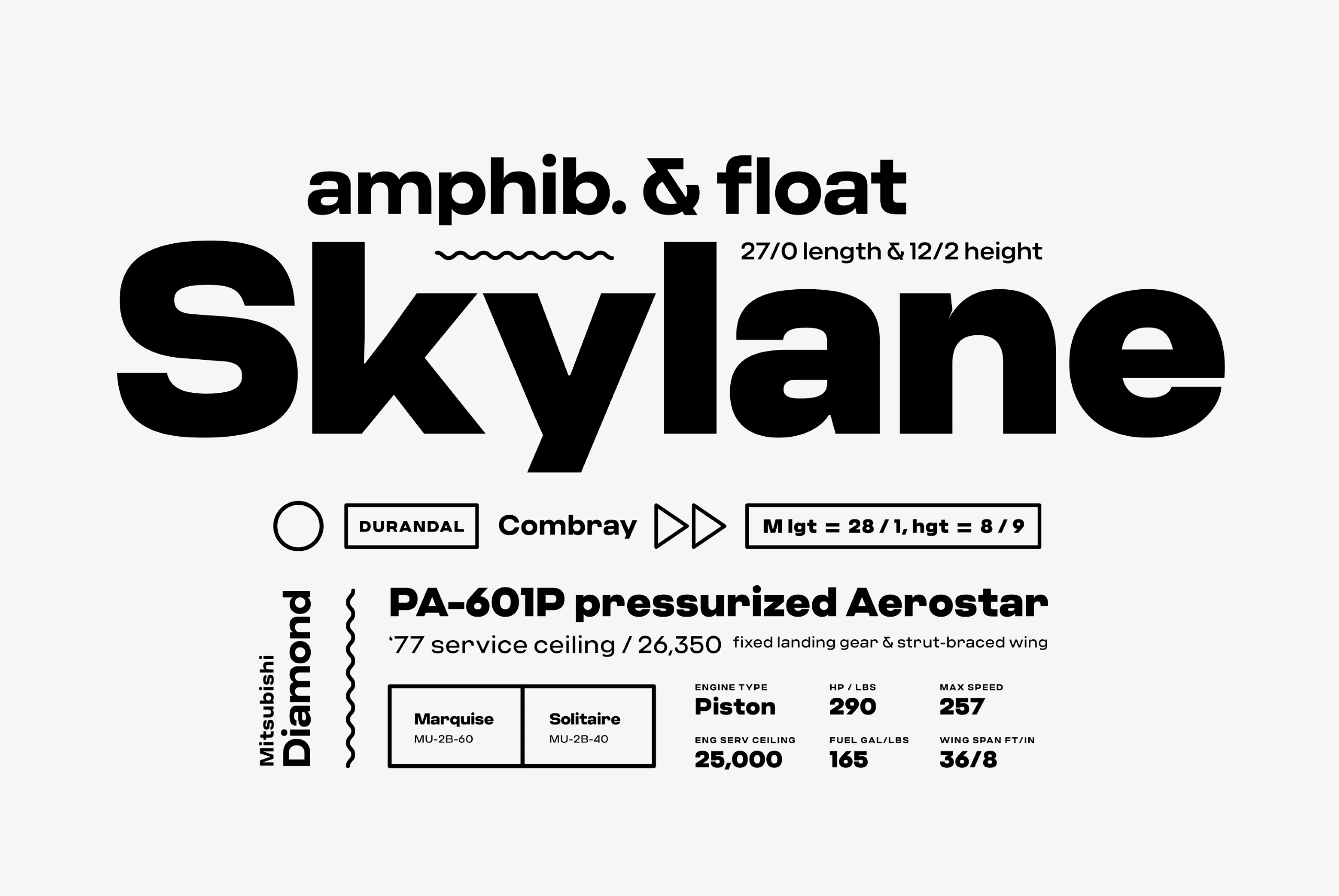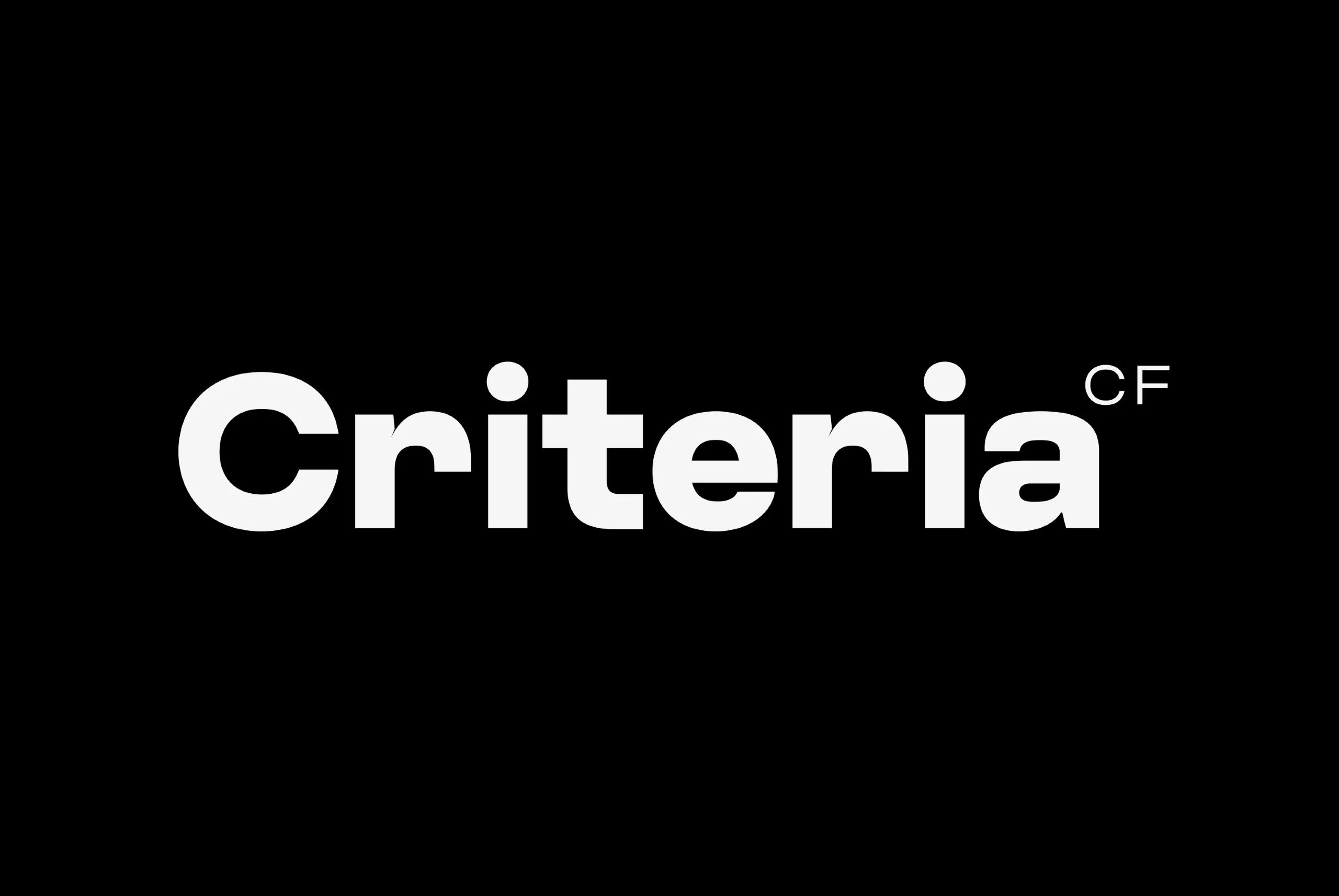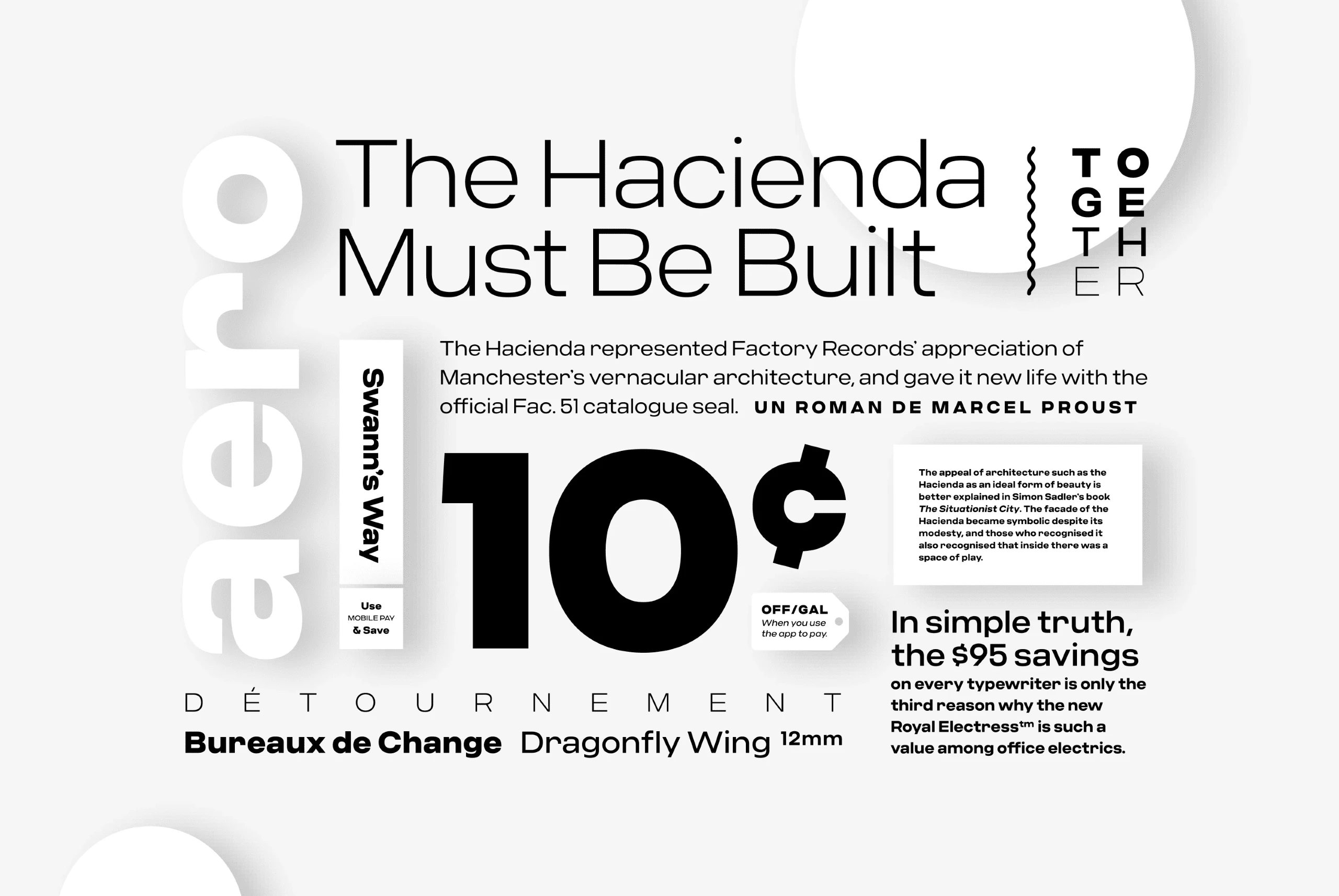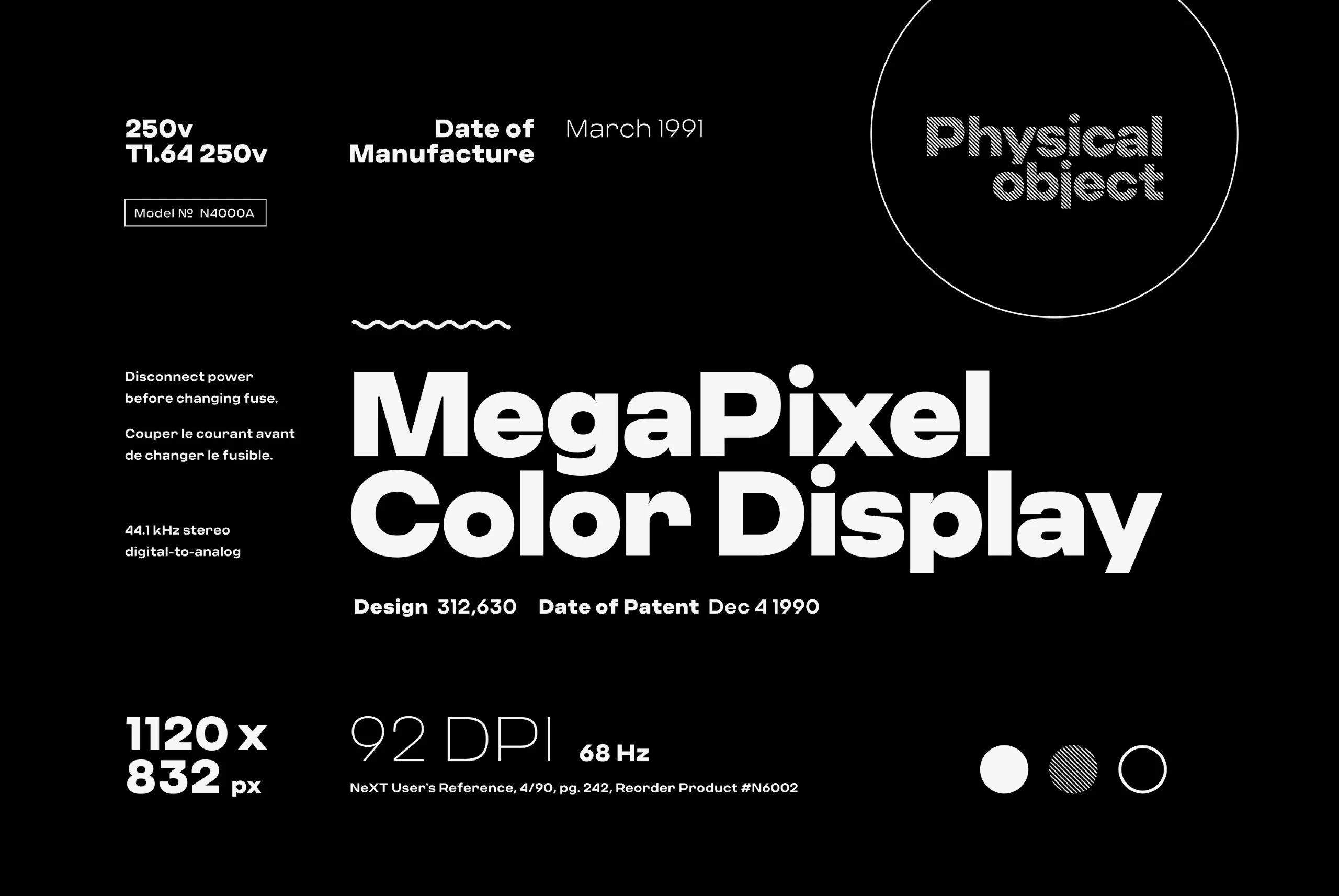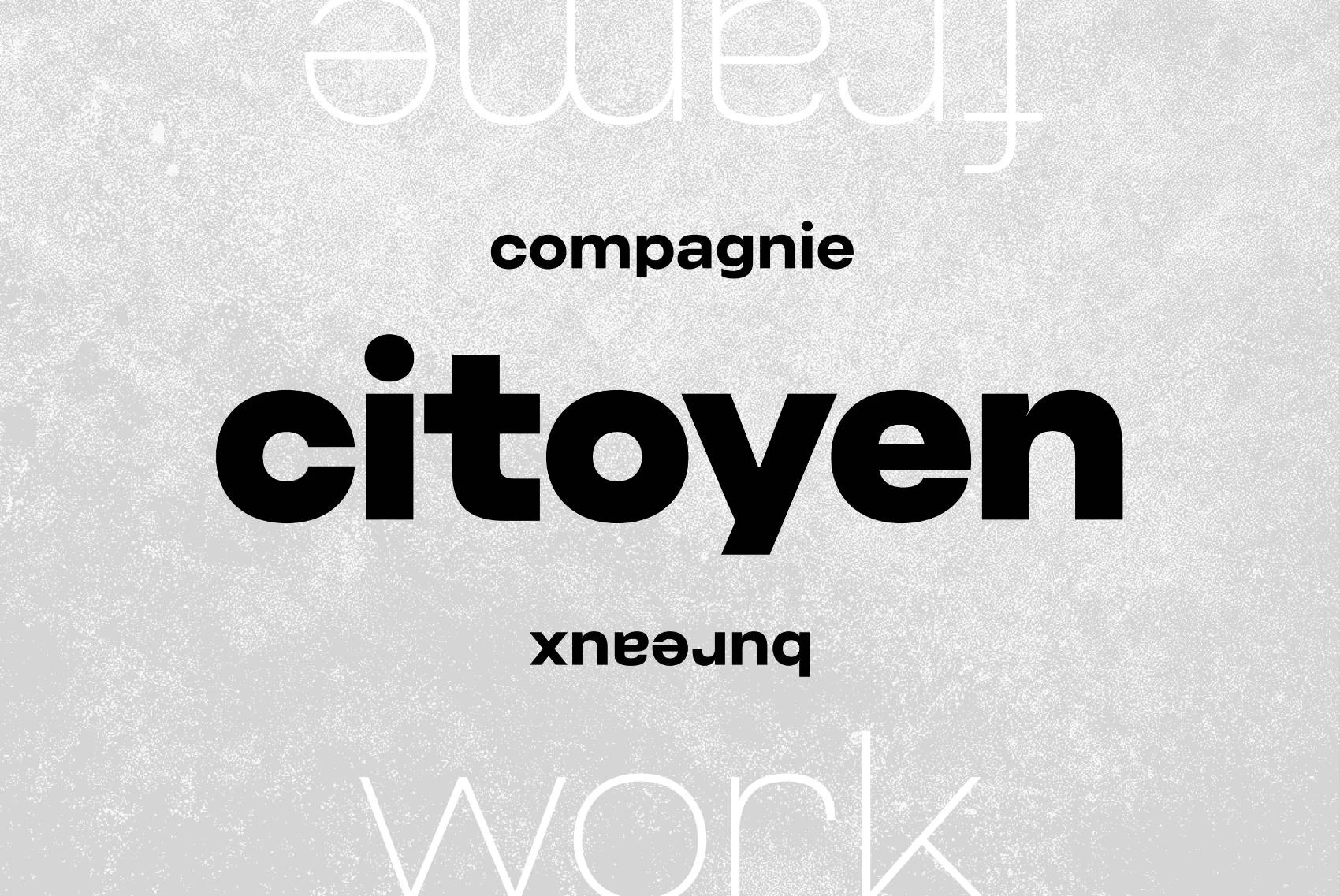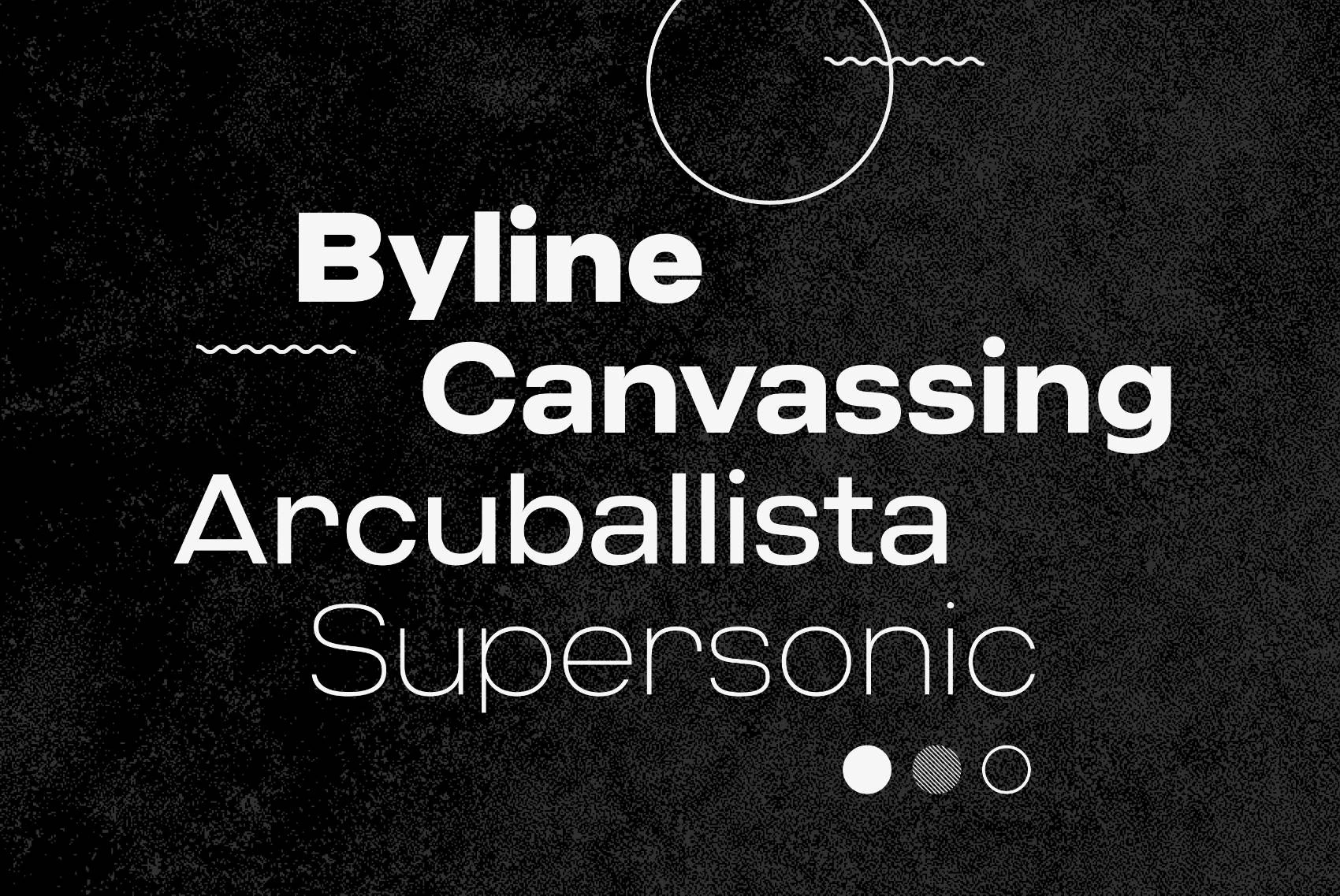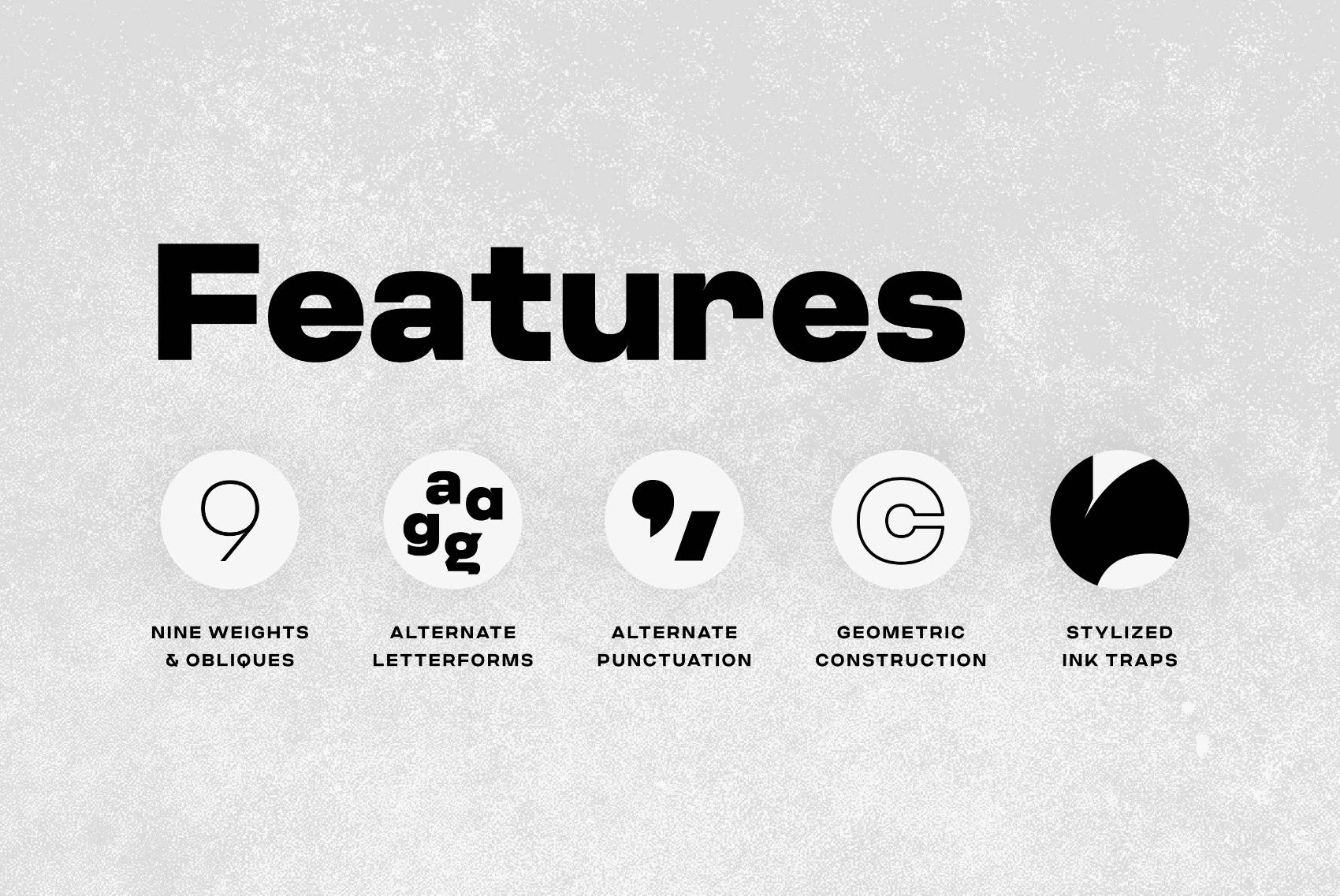
Criteria CF is a geometric sans built with simple, efficient construction. Straight lines and clean circles combine with a thoughtful design that allows for cleanly-stacked lowercase text, striking headlines, and bold wordmarks. Hints of Swiss style and unconventional ideas add a fresh dimension to a strong geometric design.
nine Weights in Latin & Vietnamese • Stylistic Sets Script